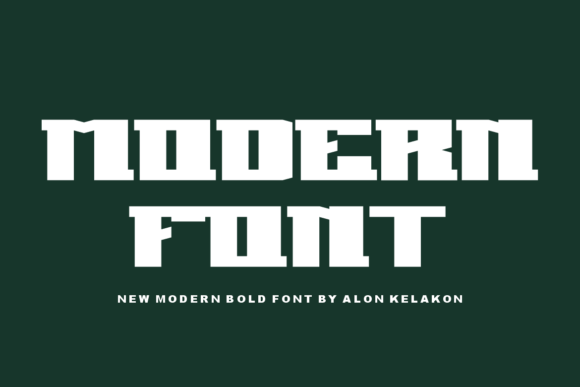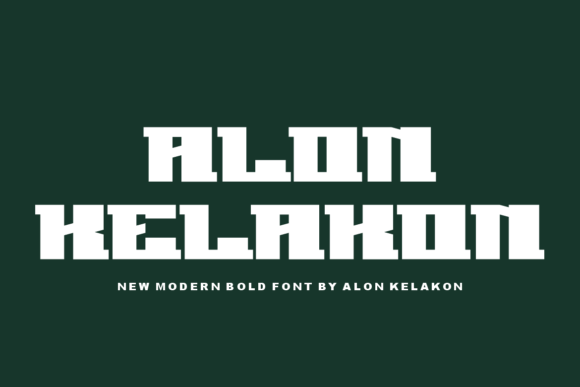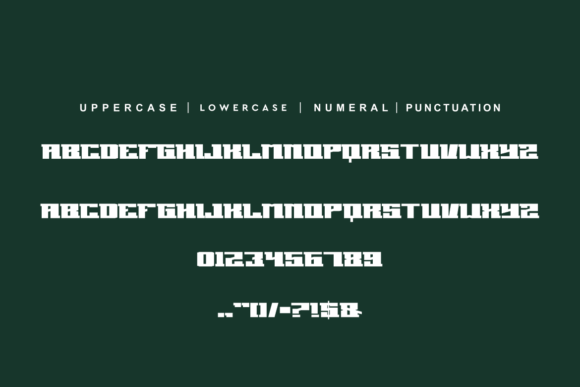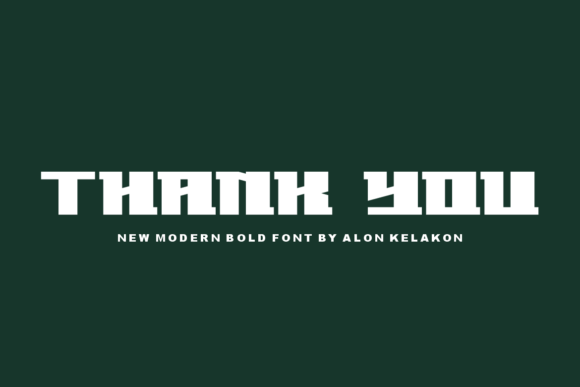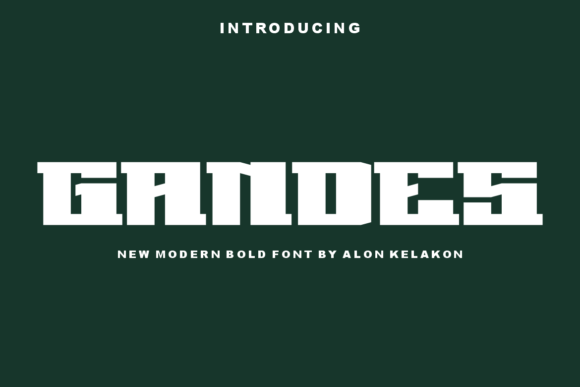
Gandes Font: A Unique Slab Serif Font for Creative Designs
Are you a designer or crafter looking for a font that can elevate your creative projects? Look no further than Gandes Font, a unique slab serif font that is ready to use for a wide range of designs. From labeling and clothing to movie scenes and album covers, Gandes Font is the perfect choice for adding a touch of style and sophistication to your work.
What is Gandes Font?
Gandes Font is a slab serif font that is designed to be versatile and easy to use. Its unique design makes it stand out from other fonts, and its wide range of applications makes it a great addition to any designer’s toolkit. With Gandes Font, you can create stunning designs that are sure to grab attention and leave a lasting impression.
Key Features of Gandes Font
So, what makes Gandes Font so special? Here are some of its key features:
• Unique Design: Gandes Font has a unique slab serif design that sets it apart from other fonts. Its bold and sturdy lines make it perfect for creating eye-catching designs.
• Versatile: Gandes Font is incredibly versatile and can be used for a wide range of designs, from labeling and clothing to movie scenes and album covers.
• High-Quality: Gandes Font is a high-quality font that is designed to produce stunning results.
Uses of Gandes Font
Gandes Font is a versatile font that can be used for a wide range of designs. Here are some of the many uses of Gandes Font:
• Labeling: Gandes Font is perfect for creating labels for products, files, and more.
• Clothing: Gandes Font can be used to create stunning designs for clothing, including t-shirts, hoodies, and more.
• Movie Scenes: Gandes Font can be used to create movie titles, scene headings, and more.
• Posters: Gandes Font is perfect for creating eye-catching posters for events, promotions, and more.
• Movie Titles: Gandes Font can be used to create stunning movie titles that are sure to grab attention.
• Gigs: Gandes Font can be used to create posters and flyers for gigs and concerts.
• Album Covers: Gandes Font is perfect for creating album covers that are sure to stand out.
• Logos: Gandes Font can be used to create stunning logos for businesses and brands.
Benefits of Using Gandes Font
So, why should you use Gandes Font for your designs? Here are some of the benefits of using Gandes Font:
• Unique Designs: Gandes Font allows you to create unique and eye-catching designs that are sure to grab attention.
• Increased Versatility: Gandes Font is incredibly versatile and can be used for a wide range of designs.
• High-Quality Results: Gandes Font produces high-quality results that are sure to impress.
Gandes Font is a unique slab serif font that is perfect for designers and crafters looking to add a touch of style and sophistication to their work. With its versatile design and wide range of applications, Gandes Font is a great addition to any designer’s toolkit. Whether you’re creating labels, clothing, movie scenes, or album covers, Gandes Font is the perfect choice. So why wait? Download Gandes Font today and start creating stunning designs that are sure to grab attention.